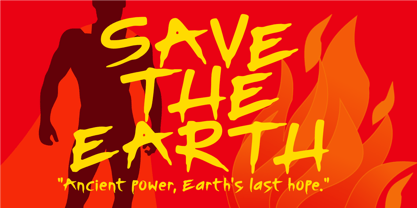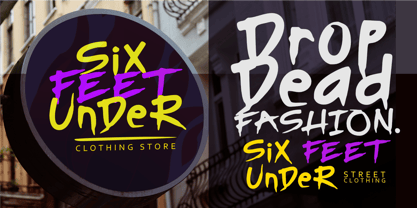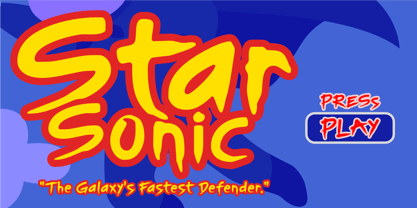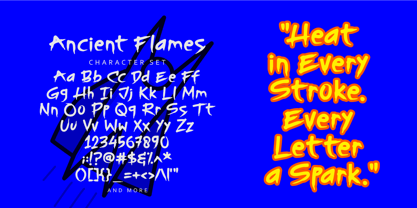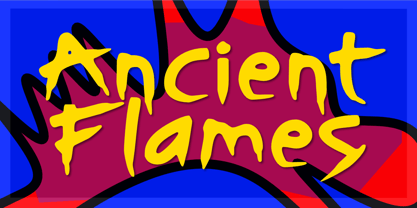
Ancient Flames
by Epiclinez
The Ancient Flames Font Family was designed by Aldy Sidik and published by Epiclinez. Ancient Flames contains 1 styles. More about this family
Ancient Flames is a bold, handcrafted brush font that burns with energy and attitude. Each stroke feels raw and alive, perfect for creating designs that demand attention. Inspired by fiery legends and ancient power, this font brings an intense, cinematic look that’s ideal for gaming titles, movie posters, action branding, and epic event graphics.
Its rugged brush texture gives your text a sense of motion and heat, making it perfect for fantasy RPG games, battle arenas, action-adventure films, horror thrillers, and esports branding. Whether you’re designing a game logo, cinematic trailer title, merchandise, or promotional art, Ancient Flames delivers a dramatic, powerful vibe that makes your project unforgettable.
Designers: Aldy Sidik
Foundry: Epiclinez